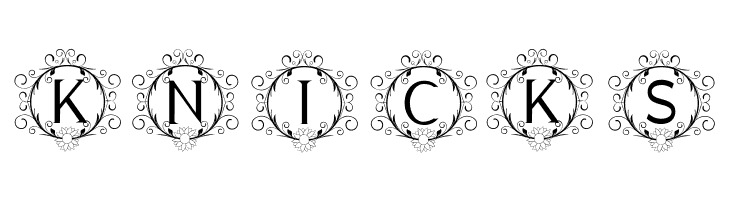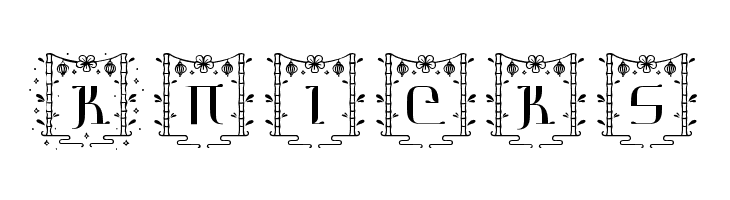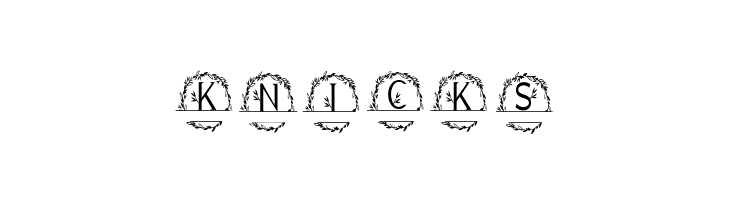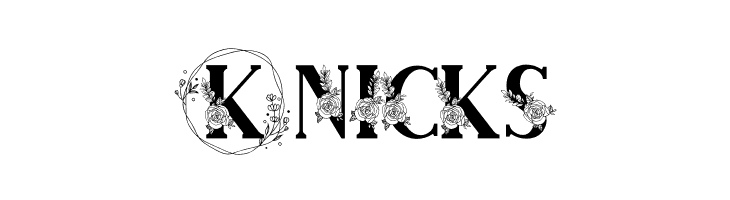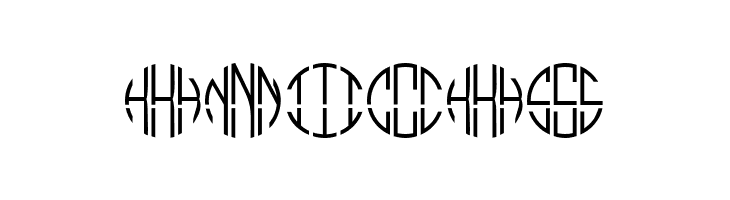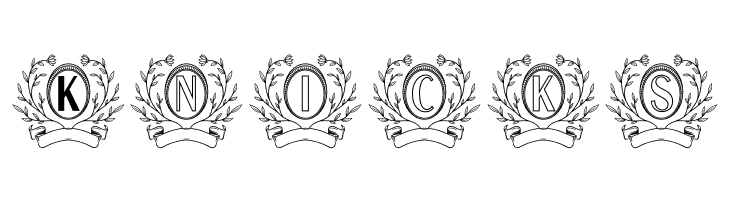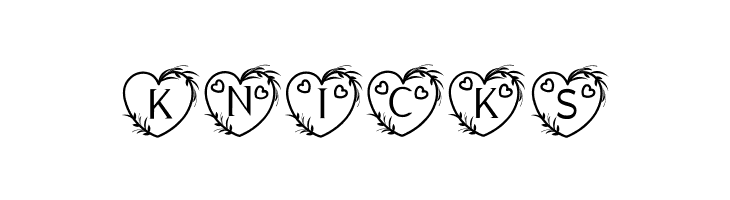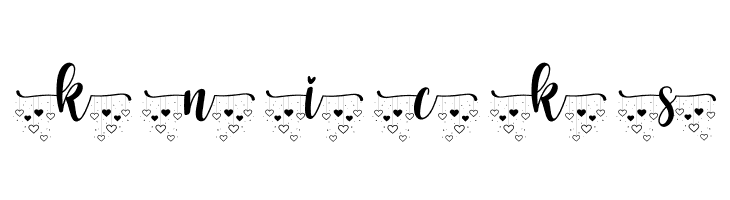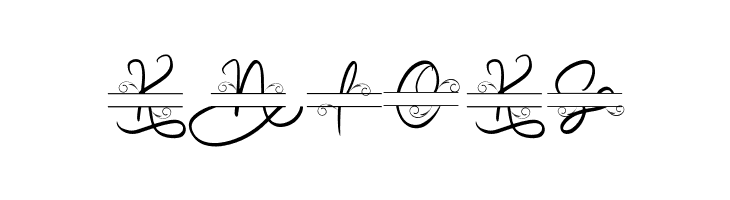
A decorative font with characters encased in sunflower-themed monograms.
A decorative and ornate font with bold, framed capital letters.
An ornate, decorative font with characters enclosed in floral wreaths, ideal for elegant monograms.
A decorative serif font with characters encased in floral wreaths, ideal for elegant monograms.
An elegant serif font with intricate floral embellishments, perfect for decorative use.
A decorative monogram font with characters enclosed in circles, offering a modern and elegant style.
An ornate, monogram-style font with floral wreaths encasing each letter.
A decorative font with characters inside heart shapes, accented with floral details.
A decorative script font with flowing cursive letters and heart motifs.
An ornate, decorative font with intricate swirls and flourishes, perfect for elegant designs.